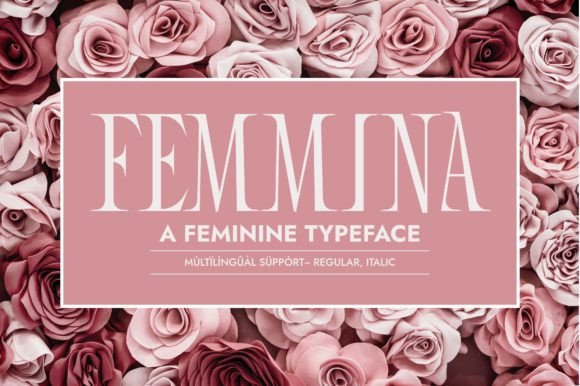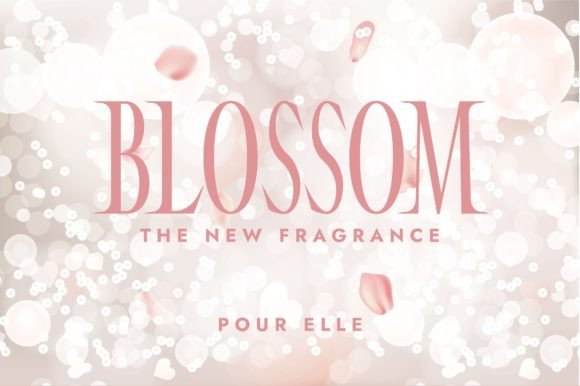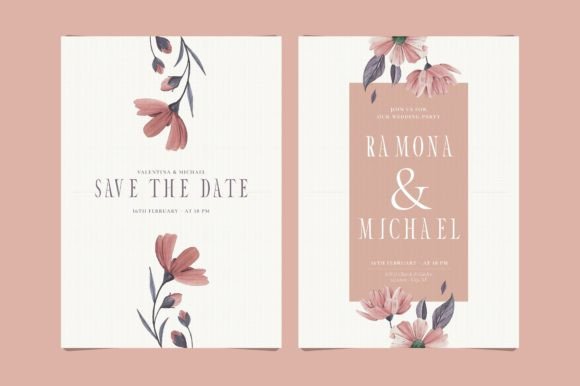
Femmina
Femmina: A Cute Slab Serif Font for Women-Related Designs
Femmina is a cute slab serif font specially crafted to assist any women-related designs. Use it on your perfume, cosmetics, packaging, social media posts, magazine covers, and more, and you will notice how it makes them come to life!
Key Features of Femmina
• Cute Design: Offers a charming and playful look suitable for feminine-oriented applications.
• Slab Serif Structure: Features distinctive serifs that add character and style.
• Versatile Application: Ideal for both print and digital media projects related to women’s products.
• Feminine Appeal: Brings a touch of grace and elegance to designs targeting female audiences.
Ideal Uses for Femmina
Femmina’s unique characteristics make it particularly well-suited for:
When incorporating Femmina into your designs, consider these tips:
• Use for headlines or short blocks of text to showcase its cute style.
• Experiment with different sizes to highlight the font’s feminine features.
• Utilize its charming appearance to create designs that appeal to female audiences.
Femmina is an excellent choice for designers looking to add a cute and feminine slab serif font to their typographic toolkit. Its ability to bring charm and elegance to various women-related design projects makes it stand out in the world of typography. Whether you’re working on cosmetics packaging, creating magazine layouts, or developing content for social media targeting female audiences, Femmina offers the perfect blend of style and femininity.
Furthermore, Femmina’s unique design allows it to shine in various contexts. From perfume labels to women’s lifestyle blogs, this font can elevate your projects with its distinctive style. Its cute yet readable appearance works particularly well in designs that aim to evoke feelings of grace and sophistication for female-oriented products and services.
In conclusion, Femmina is a font that truly captures the essence of feminine charm in modern typography. Its ability to work well in both playful and elegant layouts showcases its versatility. For those looking to add a touch of cute, feminine charm to their work, Femmina can enhance themed creations with its distinctive style. It’s the perfect choice for designers seeking to make a charming, stylish impact across a wide range of women-focused creative projects.